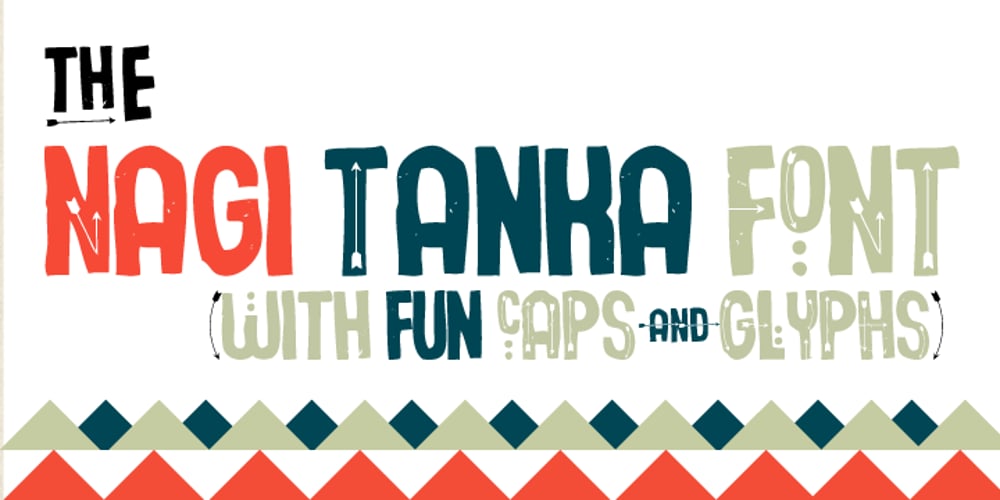
Nagi Tanka Font Family was designed by Jennifer DeAngelis Gunn and published by Design23. Nagi Tanka contains 1 styles and family package options. Nagi Tanka is a Lakota word meaning Great Spirit. This font is a combination of Arts & Crafts, modern grunge and Native designs. When the cap lock is on arrows appear in your letters. The lowercase provides the more plain Nagi Tanka font. Glyphs are included in the font that are great for labels and logos!